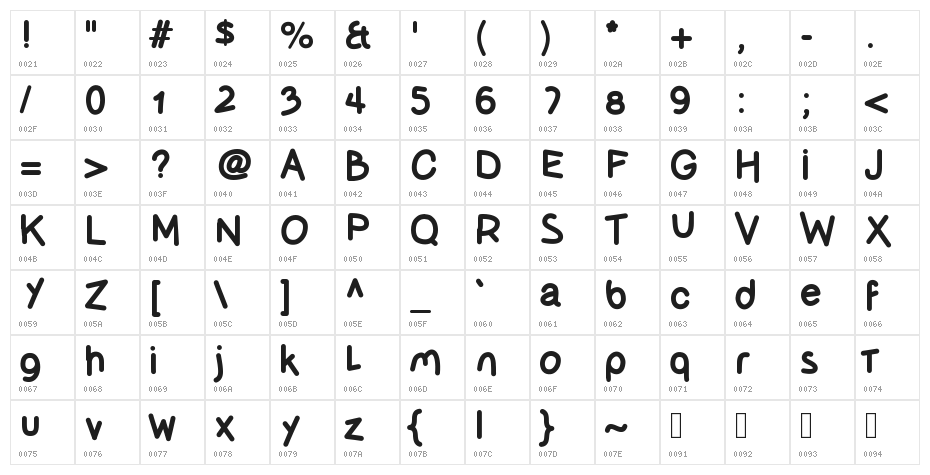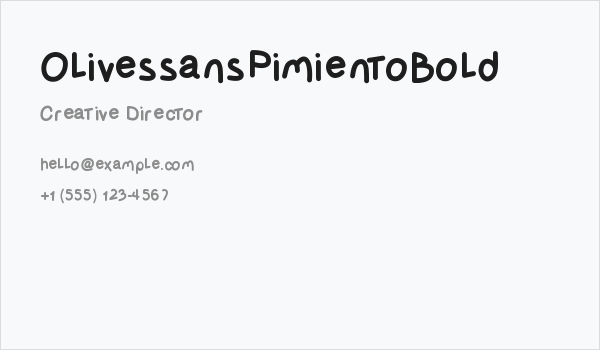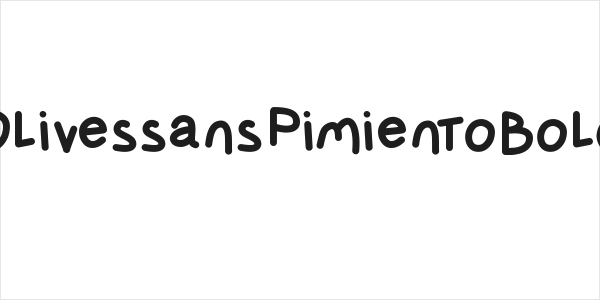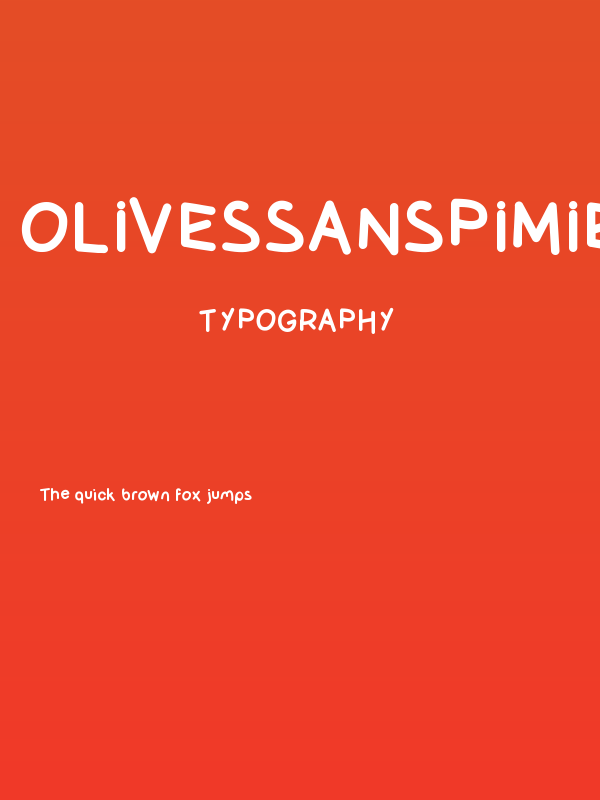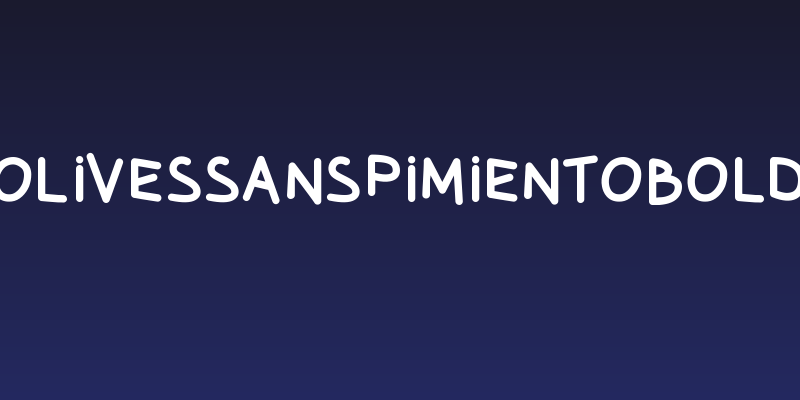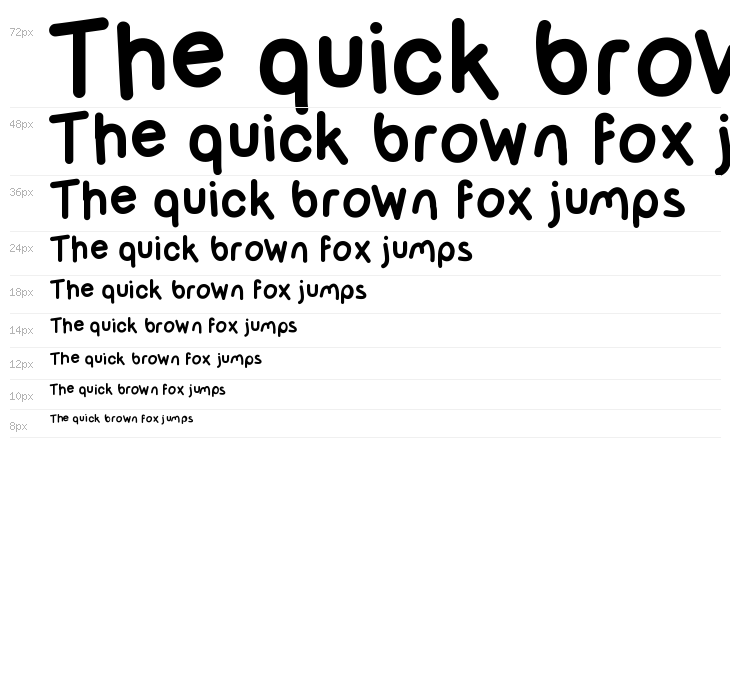
OlivessansPimientoBold Font
OlivessansPimientoBold Description
This playful and bold typeface features rounded, smooth edges that give it a friendly and approachable appearance. The characters are slightly irregular, adding a whimsical touch to the overall design. The font maintains a consistent weight throughout, ensuring readability while still conveying a sense of fun. Its boldness makes it stand out, making it suitable for eye-catching designs. The font includes a full set of uppercase and lowercase letters, numbers, and a variety of special characters, providing versatility for different design needs.
| Proposed Projects | Ideal for children's books, playful branding, casual invitations, and creative posters. |